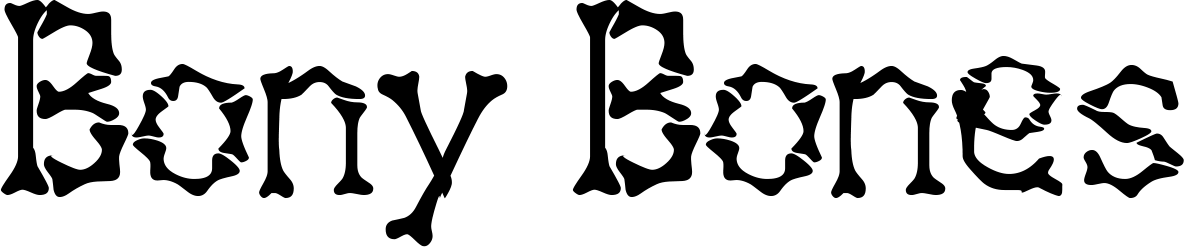
Bony Bones Font
Bony Bones is a bone font that doesn’t lean too much into the category and keeps its look fairly normal and easy to read. This skeleton font is not creepy more than it’s cartoonish. It surely will make your Halloween projects work really well.